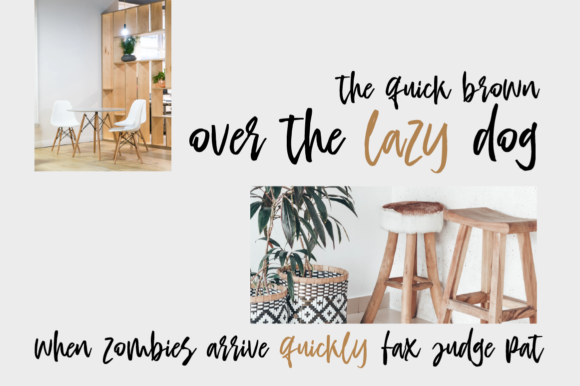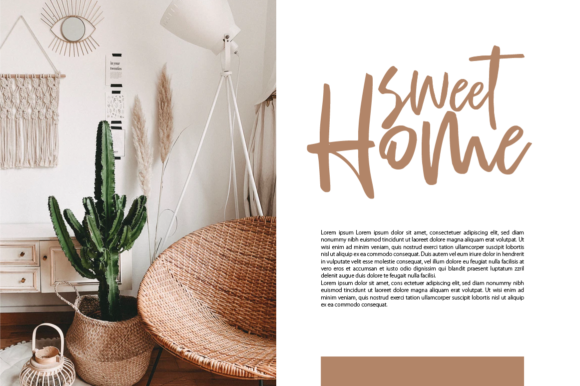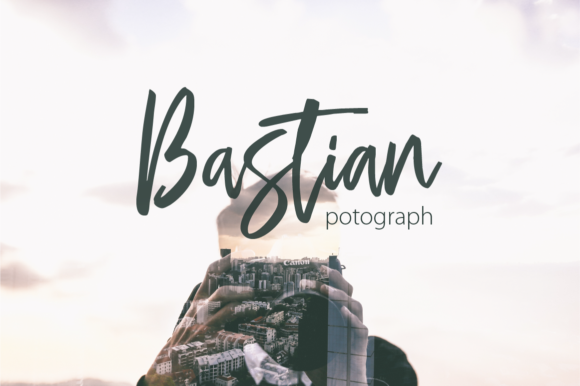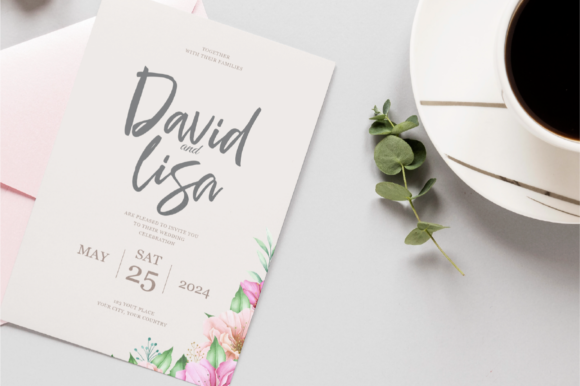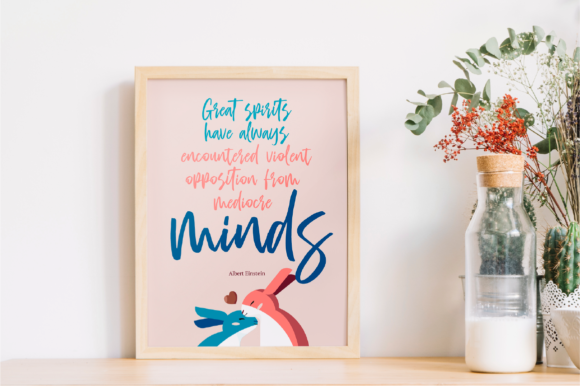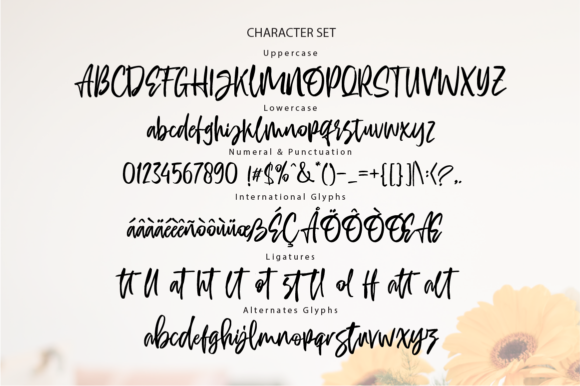
Introduction to Lastinger Font
Have you ever been working on a creative project, and suddenly, the perfect font pops up, elevating your entire design to the next level? For many designers, that moment is what makes all the hard work worth it. And that’s exactly what the Lastinger Font does – it brings a touch of effortless charm to any design, making it instantly more engaging and memorable.
As a valuable design resource, the Lastinger Font is carefully handcrafted to provide a high-quality, readable experience that works beautifully on transparent backgrounds or busy scenes. Its versatility is truly one of its standout features, allowing designers to use it as a standalone headline or in combination with other fonts to create a unique look.
Lastinger Font
- Unique, modern design with a transparent background, allowing for seamless integration into any design
Honest Review: Lastinger Font
I recently had the chance to work with the Lastinger Font, and I have to say, it’s a great addition to any design resource library. The high quality of the font is evident from the first glance, with smooth lines and well-defined shapes.
One of the standout features of the Lastinger Font is its versatility. It’s perfect for a wide range of creative projects, from logos and branding materials to digital and print designs. The font’s modern and sleek design makes it an excellent choice for any project that requires a professional and high-end look.
Here are some of the things that work well with the Lastinger Font:
- ✨ Clean and minimalist design
- ✨ Excellent for digital and print designs
- ✨ Transparent background for easy editing
- ⚠️ Limited character set, may not be suitable for extensive text-based projects
- ⚠️ Some users may find the font too modern and trendy
Overall, I’m impressed with the Lastinger Font. It’s a great resource for any designer looking to add a touch of sophistication to their creative project. With its high quality design and versatility, it’s definitely worth checking out.
Lastinger Font
Introduction to Lastinger Font
Lastinger Font is a high-quality design resource perfect for creative projects. With its unique style and transparent background, this font is ideal for designers and artists looking to add a touch of elegance to their work.
Getting the Most Out of Lastinger Font
Here are some tips for getting the most out of Lastinger Font:
1. Experiment with different font sizes and colors to create unique designs.
2. Use the transparent background to create a sense of depth and dimension.
3. Combine Lastinger Font with other design elements to create visually appealing designs.
Common Use Cases for Lastinger Font
Lastinger Font is perfect for a variety of creative projects, including:
1. Wedding invitations and stationery.
2. Branding and logo design.
3. Social media graphics and advertising.
4. Print and digital publications.